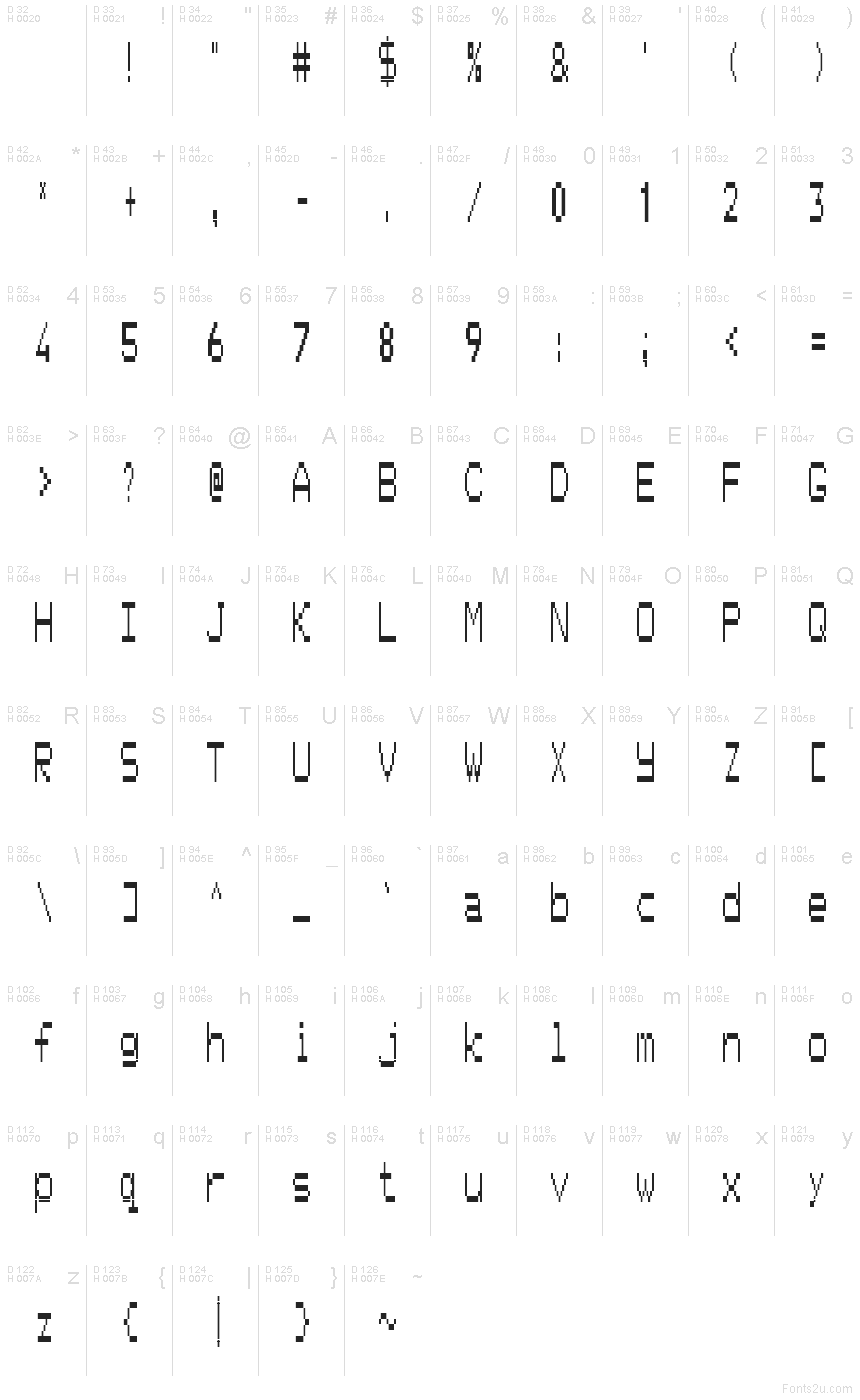
Samsung CRT TV (extremely close to) 3x Regular
Samsung CRT TV font by ilikeosdfonts is a modern-retro pixelated bitmap font. A tech-inspired, minimalist vibe can be perceived across all geometric characters with a digital appearance. The condensed sans-serif letters enjoy an engaging modular design that mimics old computer screens and gaming devices.
The free bitmap font is perfect for online games, software, apps, gadget websites, nostalgia designs, posters on college campuses or festivals venues (or other advertisement mediums), banners and signages, video summaries/titles and more!
I decided to recreate this font based on a Samsung CRT OSD, and it is now in the beta stage.
This font supports both the Latin and Cyrillic alphabets.